We're well past the midpoint of February now. The post-January slump is officially over and, if this month's type releases are anything to go by, the creative industry is well and truly back in gear. There's a real sense of ambition running through these releases. Big ideas, careful craft, and more than a few stories that genuinely made me stop and read twice.
We've talking bespoke type for one of Britain's most beloved animation studio, a landmark update to one of German design history's most important typefaces – a quietly extraordinary multiscript collaboration that grew from a student project into something world-class... and that's just for starters. More broadly, the breadth of multilingualism on show this month is also worth celebrating. Several of these releases take language support seriously in ways that go well beyond the usual checkbox.
1. Aeonik Soft by CoType Foundry
Aeonik is already the typeface of choice for Revolut, Eurosport and Alipay, so a new family member is worth paying attention to. Especially because Aeonik Soft doesn't reinvent its parent; it reinterprets it.
Subtly curved corners replace the sharp geometric edges of the original, creating a tone that's warmer and more approachable whilst keeping the neo-grotesque backbone entirely intact. It's a nuanced shift; the kind that's easy to miss at a glance but immediately felt in use.
This opens up applications the sharper original couldn't quite reach: editorial, packaging, children's content and UI design, to name but a few. Eight weights from Air to Black, matching italics, a variable font, and support for Latin, Vietnamese, Cyrillic, and Greek make this a genuinely comprehensive addition to an already dependable superfamily.
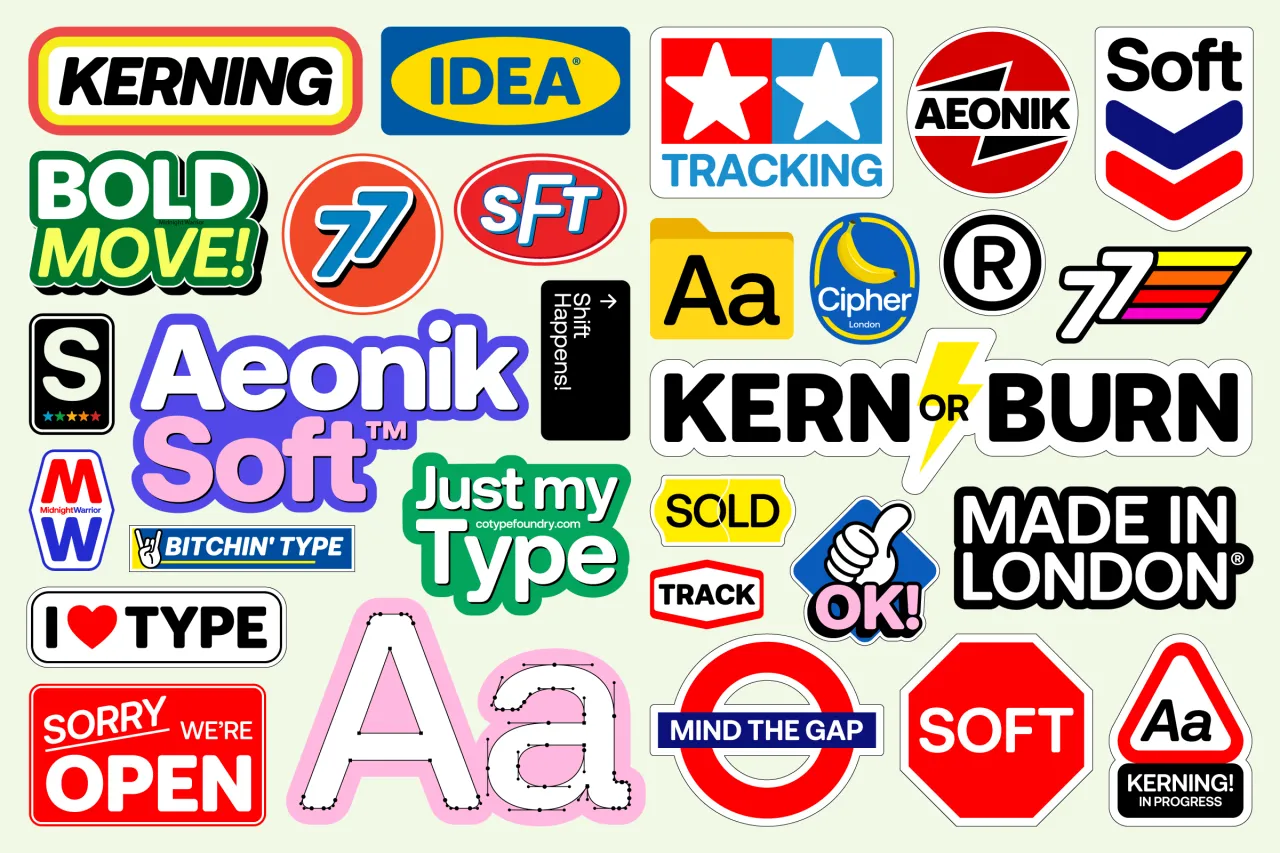
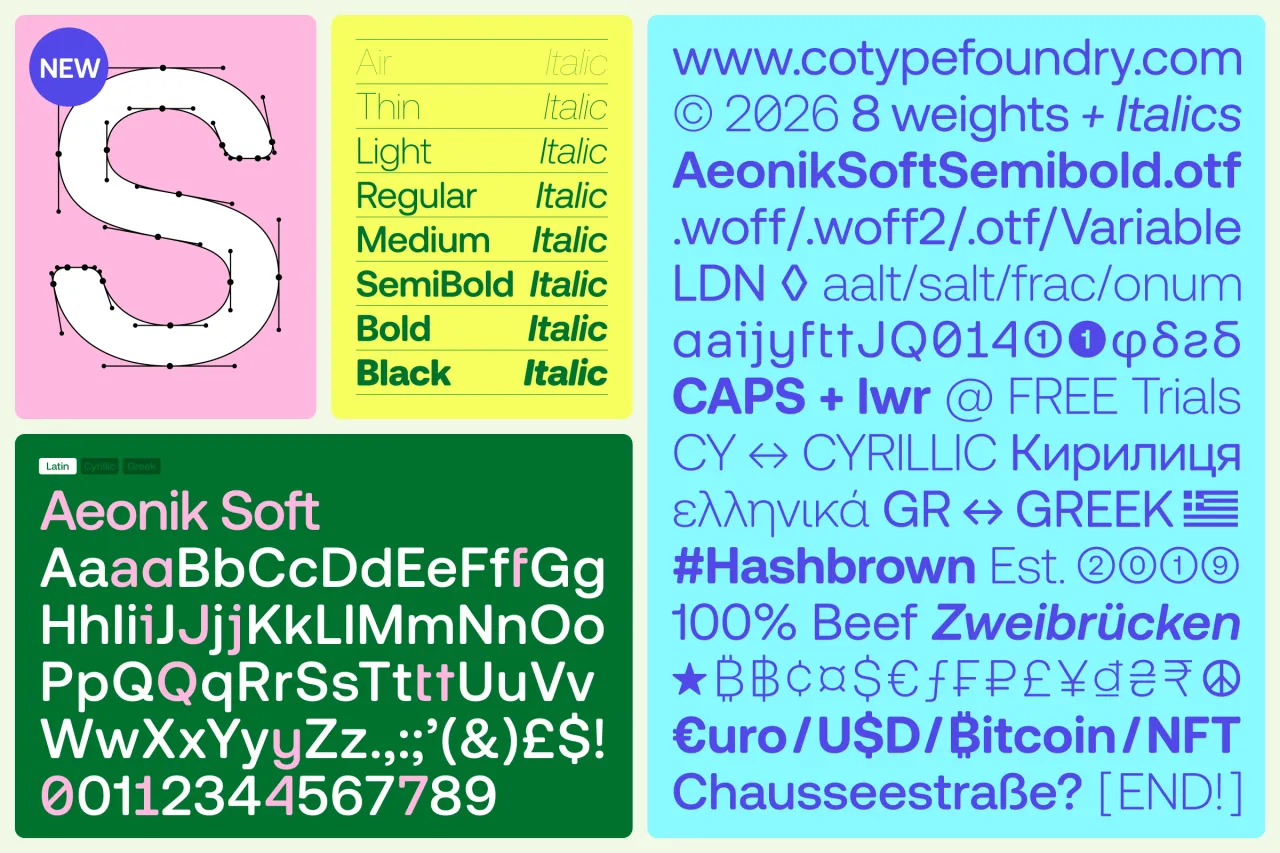
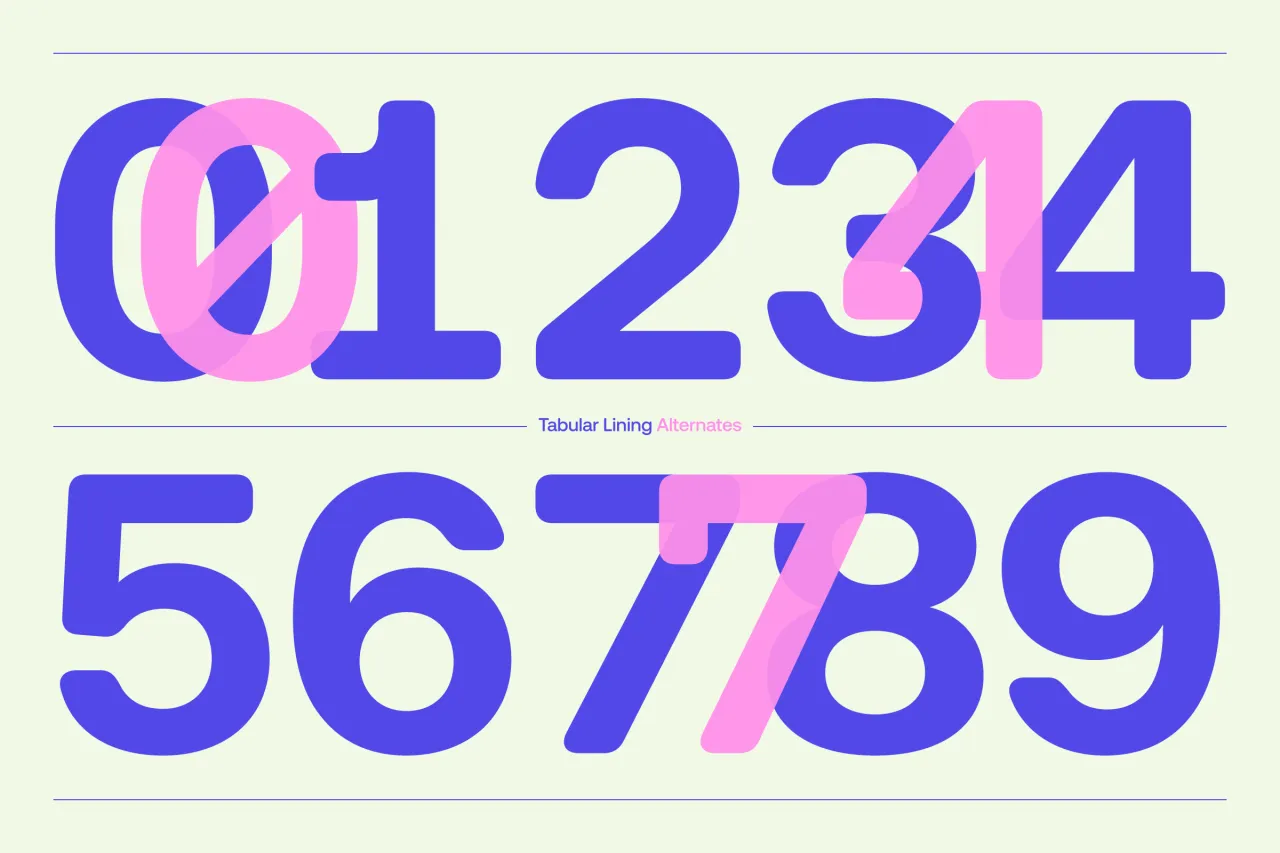
2. WG Buttered Crumpet by Jamie Clark Type
Bristol-based designer Jamie Clark was commissioned to create a bespoke typeface for Wallace & Gromit as part of a wider style guide project by Studio Griggs for Aardman. The result is Buttered Crumpet, and it's truly delightful.
Drawing early inspiration from Oswald Cooper's Cooper Black, Jamie has developed something softer and hand-crafted, with serifs shaped to resemble loaves of bread (as you do). While this is a bespoke commission and is not available for purchase, it's a perfect example of custom type design done brilliantly: purposeful, characterful, and deeply appropriate to its subject.
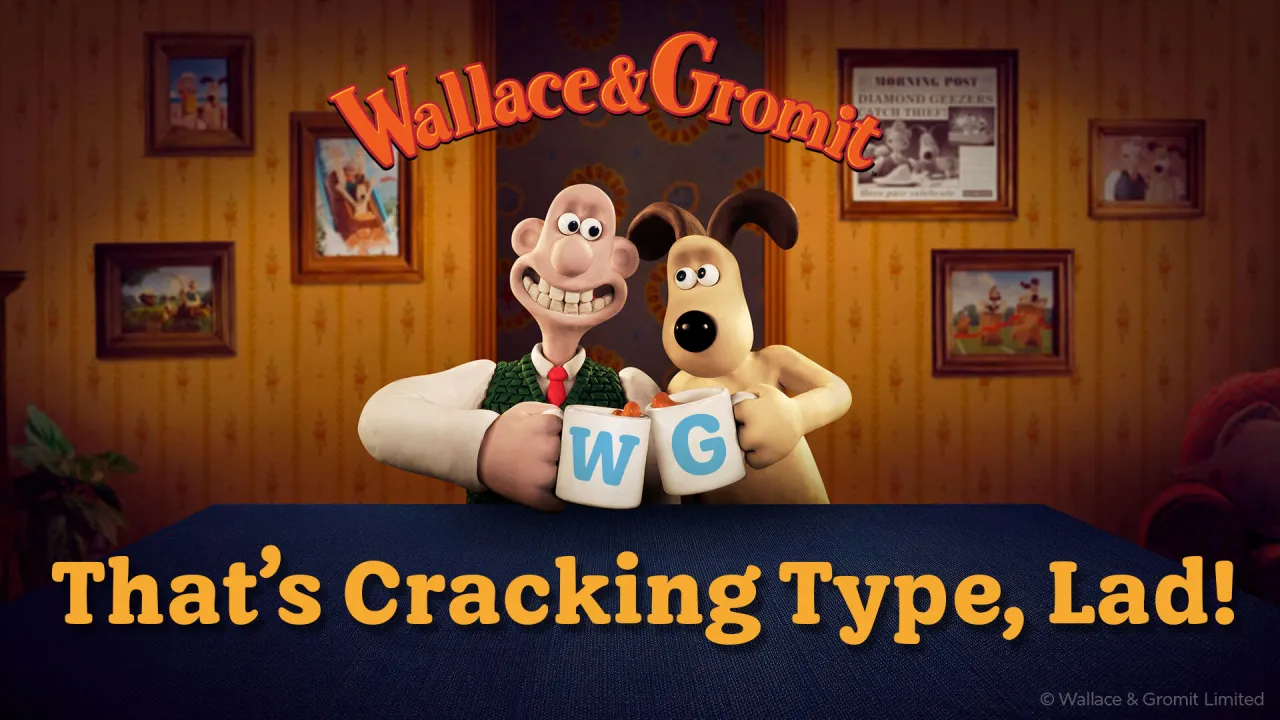
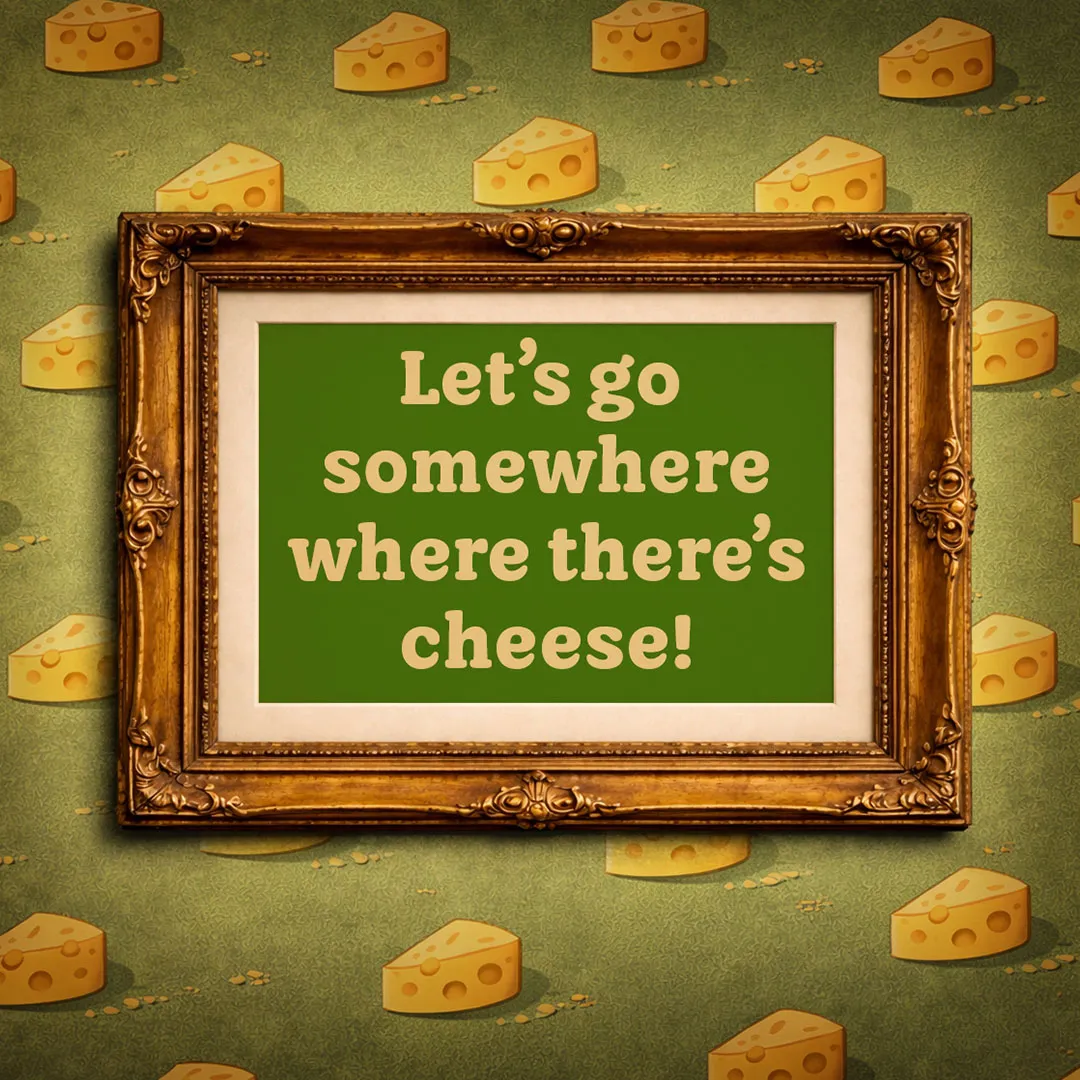
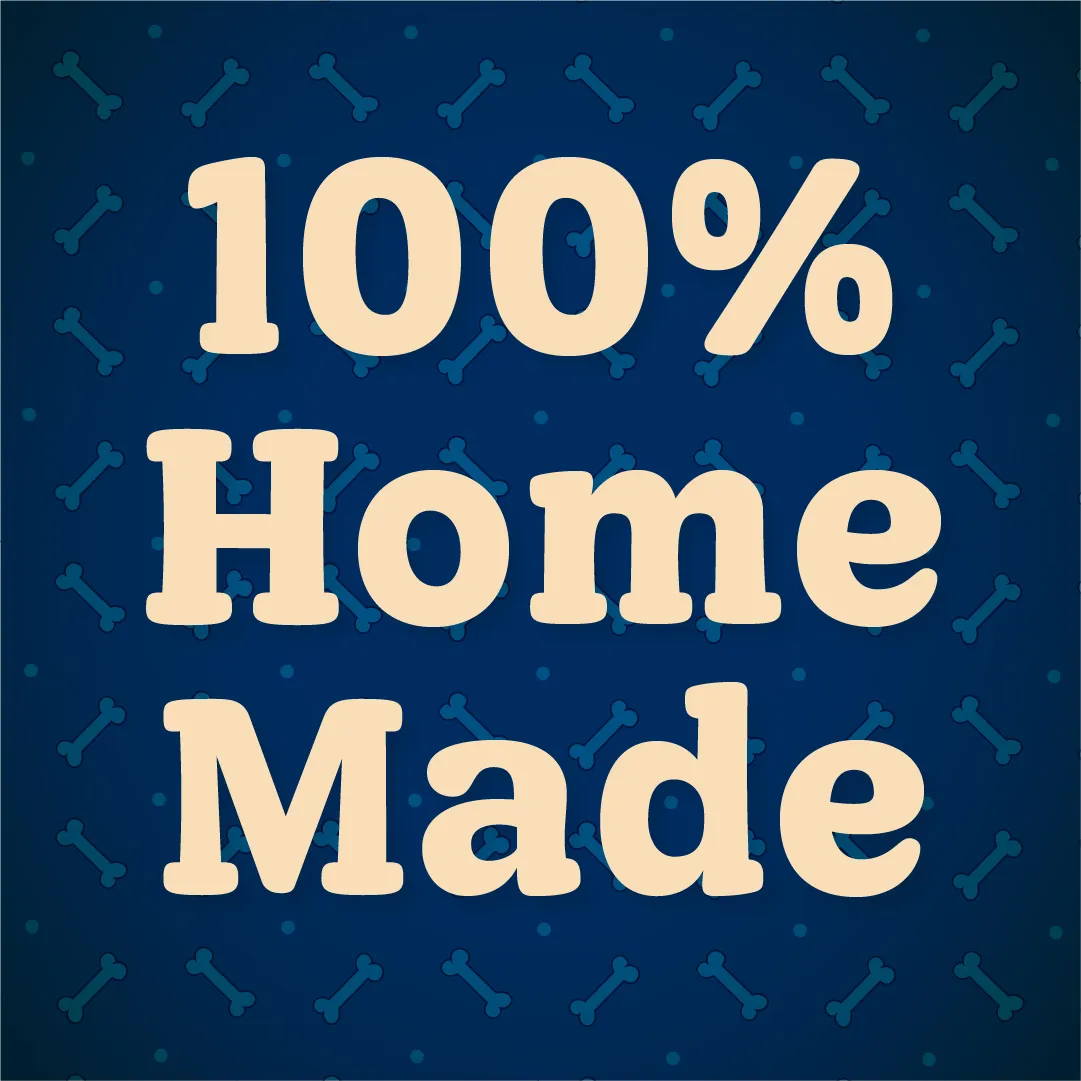
3. Neue DIN 2.0 by Andreas Frohloff, Olli Meier, and Hendrik Weber
Three years ago, Fontwerk's Neue DIN won six major international awards for radically expanding DIN from XXCondensed to XXWide. Version 2.0 addresses the one gap in that vision: italics. But not just any italics; alongside 81 standard italic fonts, Fontwerk has added 81 left-slanted "Retalic" variants for striking, high-impact contexts, bringing total static options to 243. The variable font gains a third axis for slanting in both directions.
This might sound incremental, but the scale and quality of execution are anything but. DIN has been a fixture of German public life for a century; Neue DIN 2.0 continues the project of honouring that heritage whilst making it genuinely fit for now.
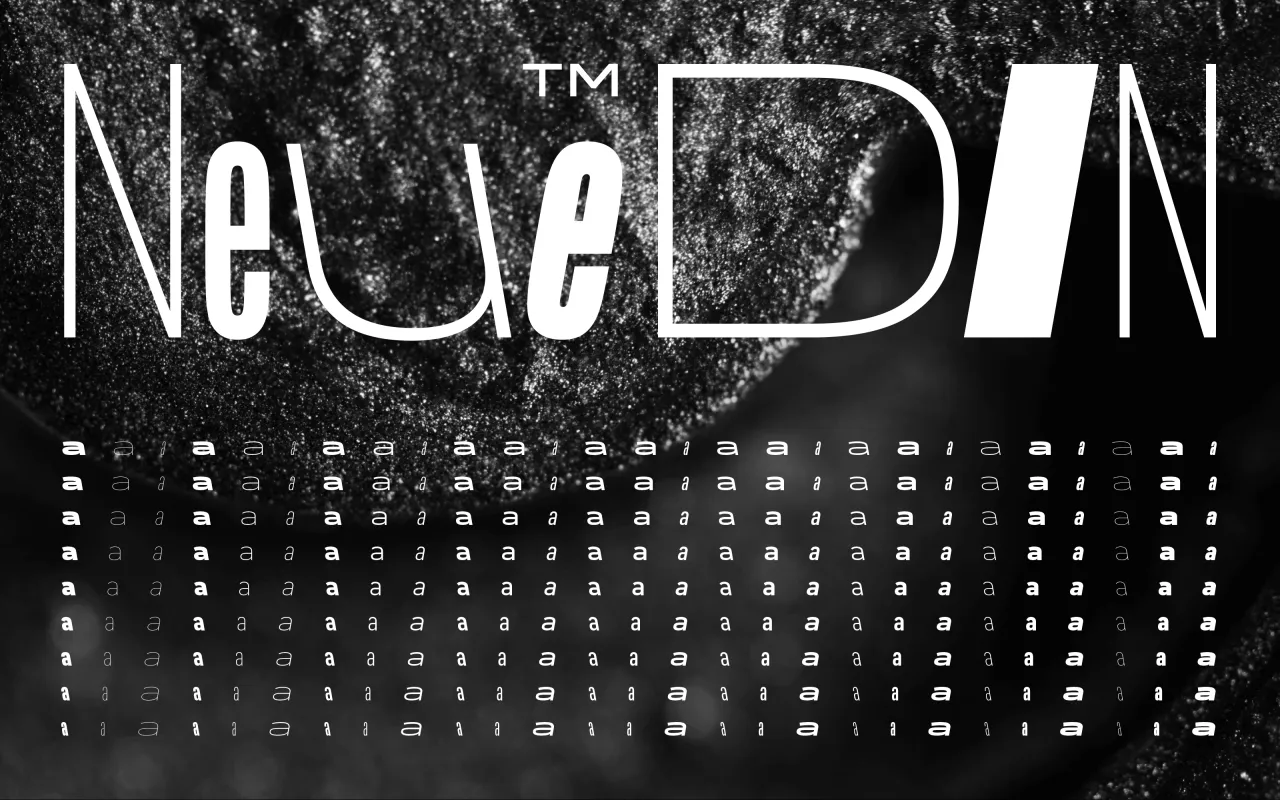
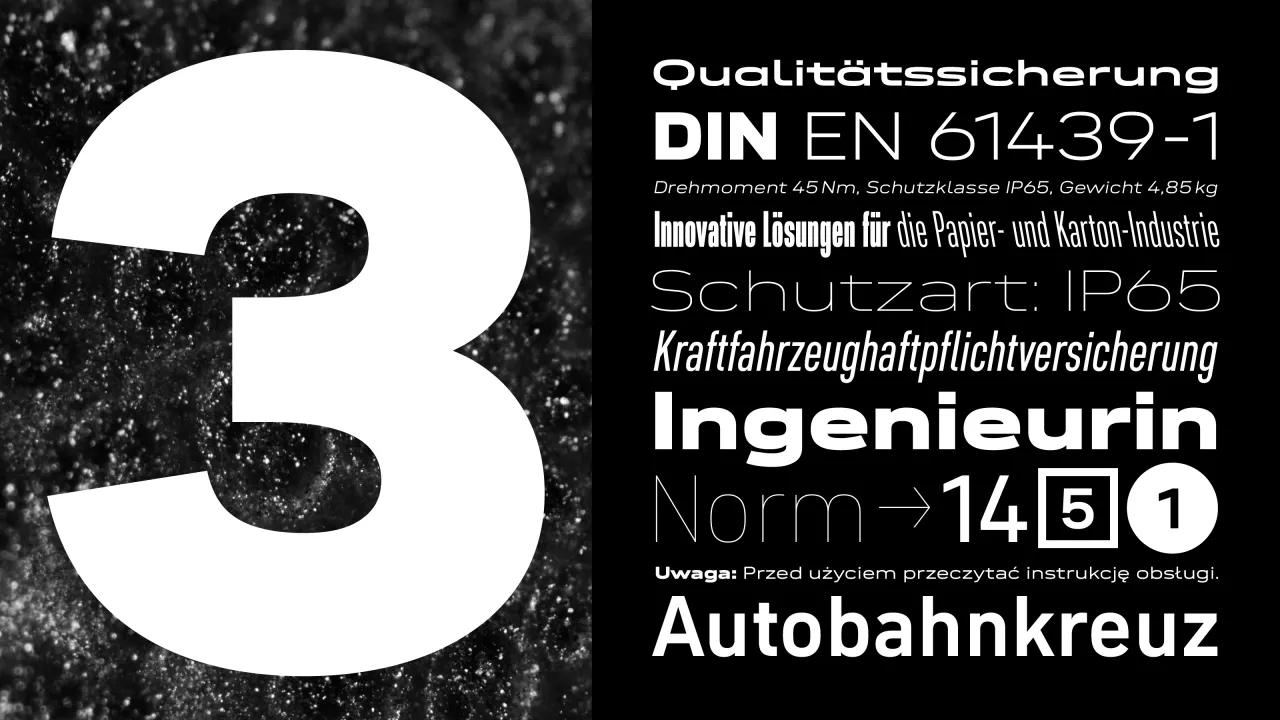
4. 29LT Azahar by Jose Carratalá, Krista Radoeva, and Naïma Ben Ayed
The name says it all: azahar is Spanish for orange blossom, derived from the Arabic الزَّهْرَة (az-zahra). And a word rooted in two cultures is an ideal moniker for a typeface spanning three scripts. 29LT Azahar is a variable superfamily covering Latin, Cyrillic and Arabic, developed collaboratively with each script treated as an equal partner throughout.
It grew from Jose Carratalá's MA thesis at the University of Reading into something far more ambitious: shaped by Krista Radoeva on Cyrillic, Naïma Ben Ayed on Arabic and 29Letters founder Pascal Zoghbi overseeing the system. The Display version transforms practical text features into stylistic statements; the Text version offers warmth and classical proportion. The Latin details reward close attention; triangular terminals referencing stone-cut Roman capitals, an unconventional treatment of "g" that inverts Didone convention.
All in all, 29LT Azahar adds up to something genuinely rare: a multiscript family that feels unified rather than assembled.
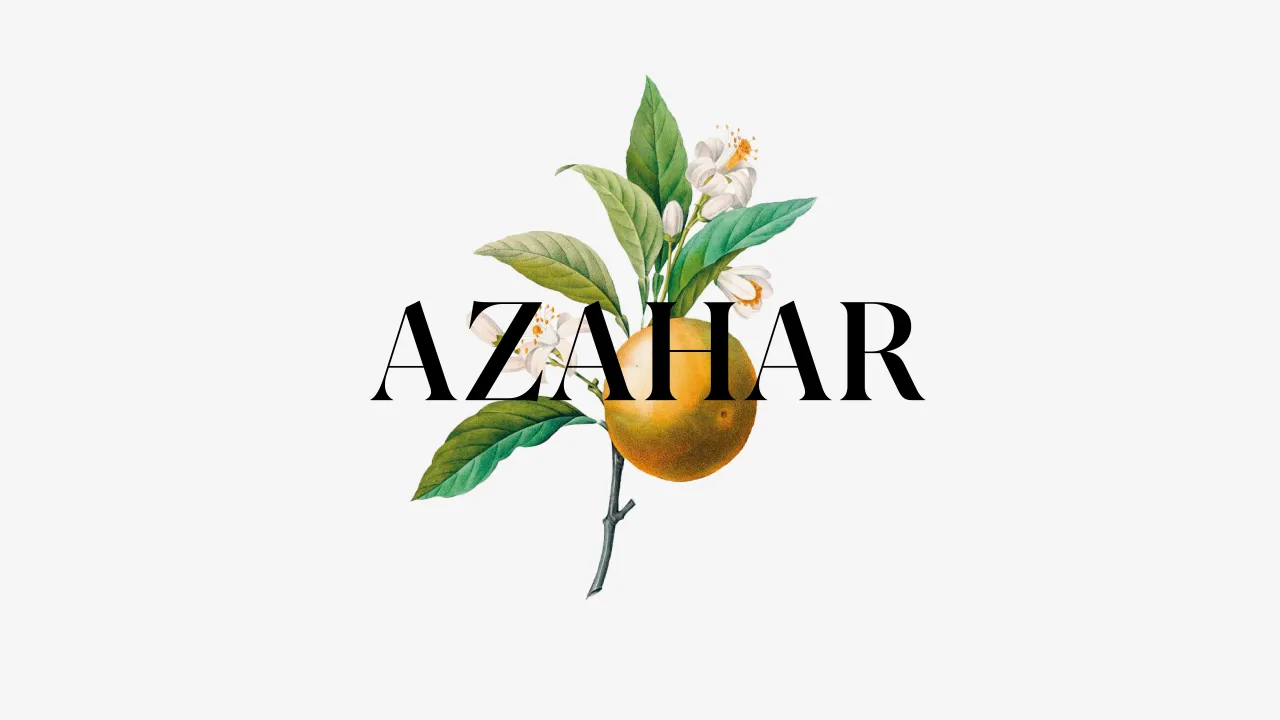
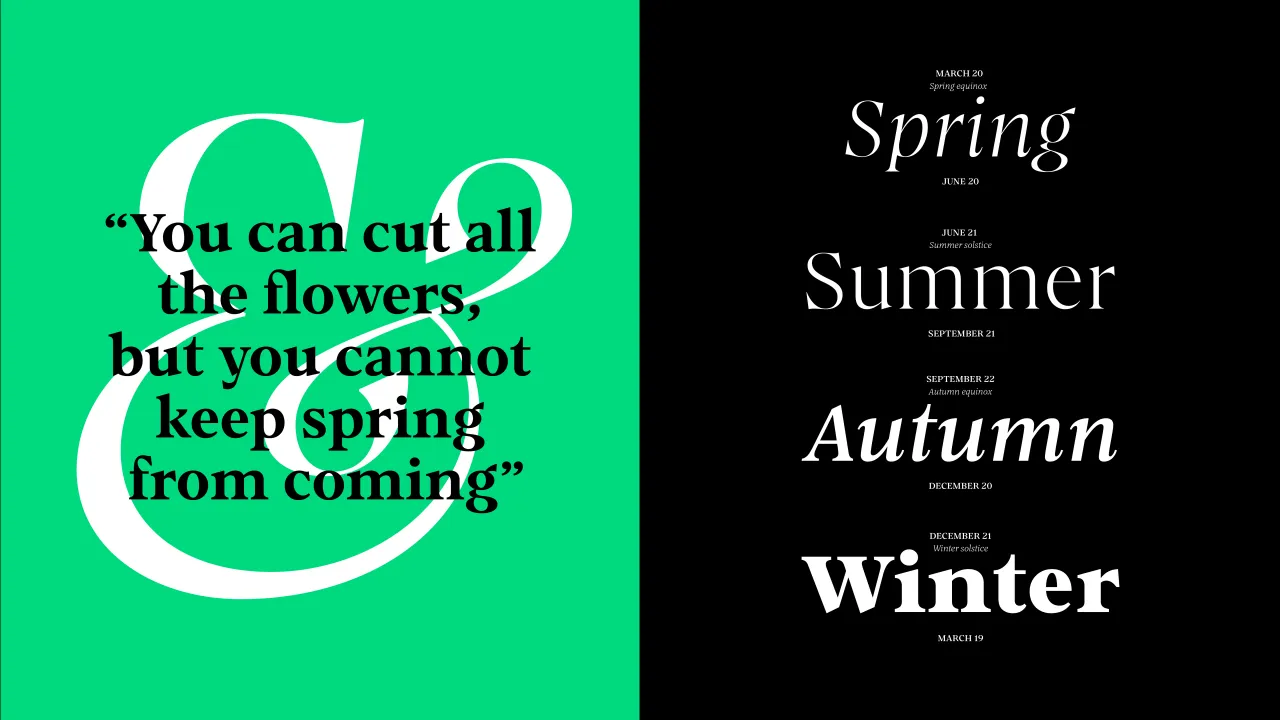
5. KTF Prima by Kyiv Type Foundry
KTF Prima has been a decade in the making, and it shows in the best possible way. Yevgeniy Anfalov began it during his studies at ECAL, inspired by Forma, the warmer-than-average Italian modernist sans serif from Nebiolo. His response was a "one style fits all" system, redrawn entirely from scratch with no compromises forced by obsolete technology: clean contemporary structure from ultra-thin to ultra-black.
14. YJ Knotted Ink by Yenty Jap Creative
Sometimes you just want a typeface made by a human being for other human beings. YJ Knotted Ink is exactly that: a bold, hand-drawn display font with a knotted ink texture that gives letterforms a stamped, tactile quality; rounded, intentionally imperfect and genuinely warm.
This is no digital approximation of roughness, but the real visual quality of ink on paper. For small business branding, packaging and social content where handmade personality matters more than systematic polish, this delivers.